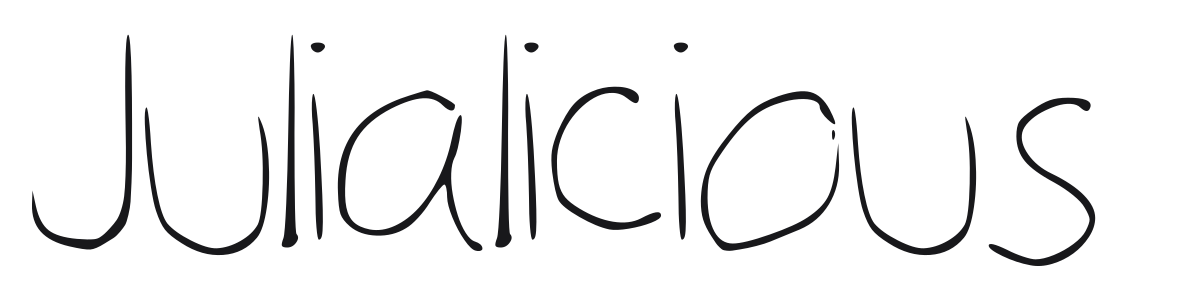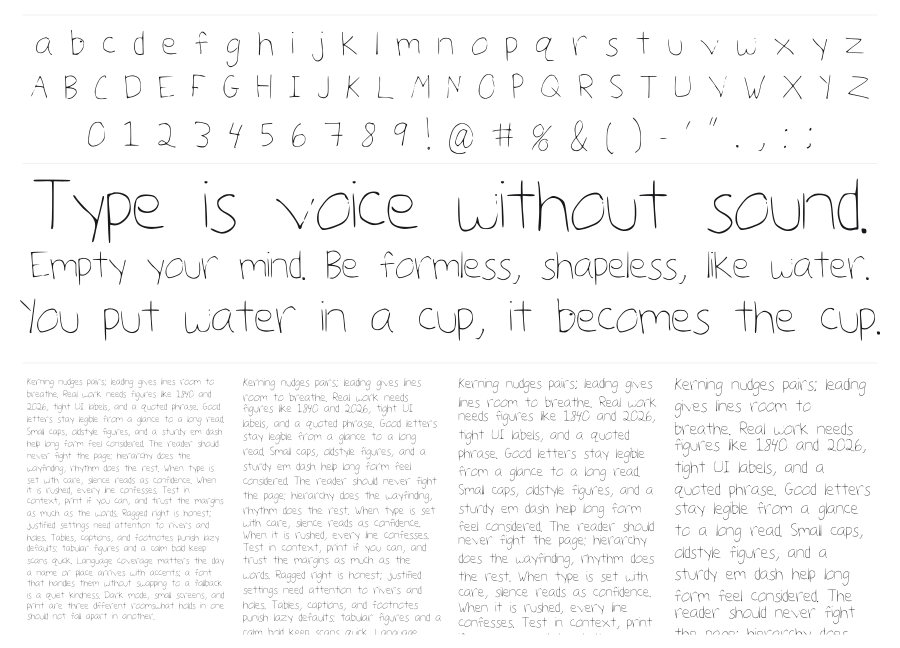
Julialicious
Julialicious is a casual handwritten font with ultra-thin strokes and a charmingly wobbly rhythm. The irregular baseline and organic letter shapes give it the feel of quick notes written with a fine-tip pen. It brings a personal, unpretentious warmth to anything from packaging to invitations.